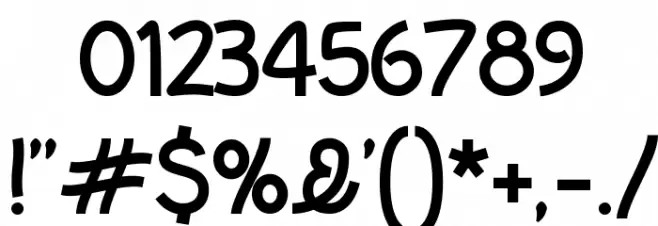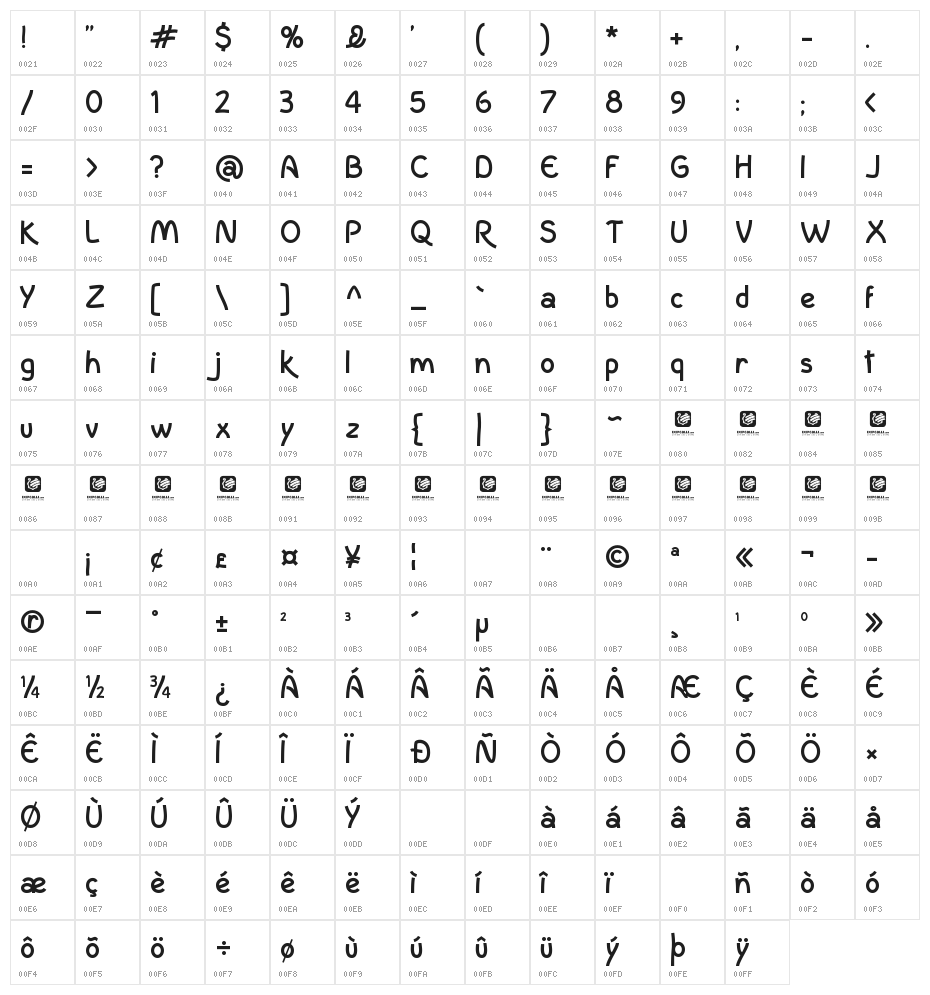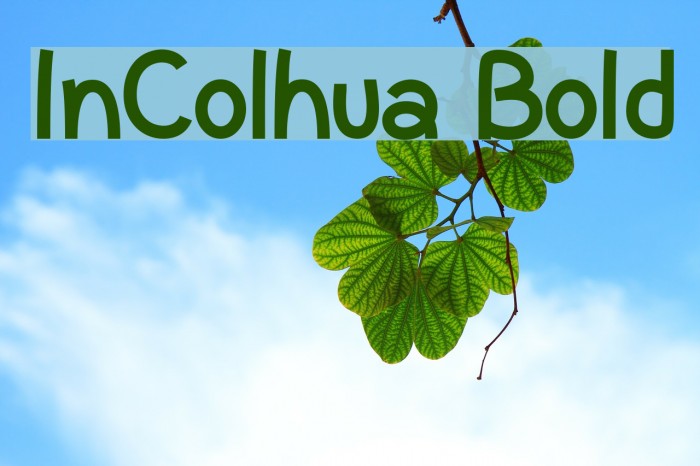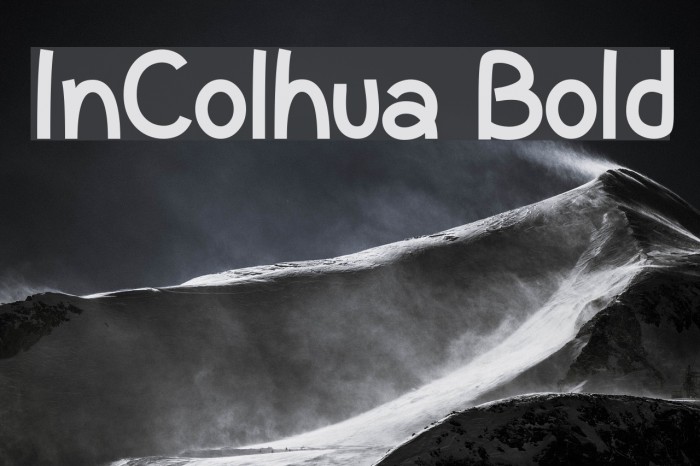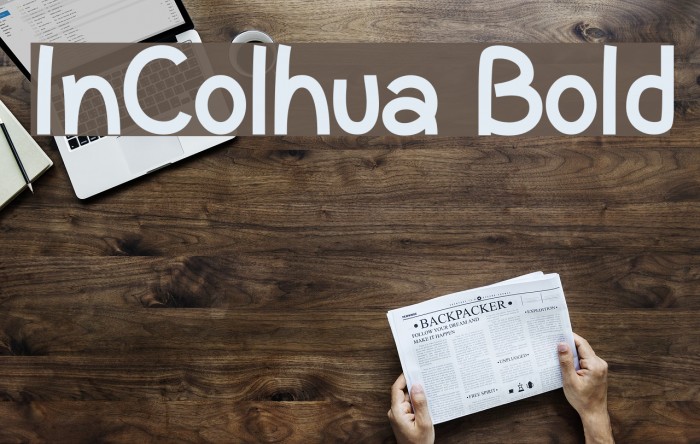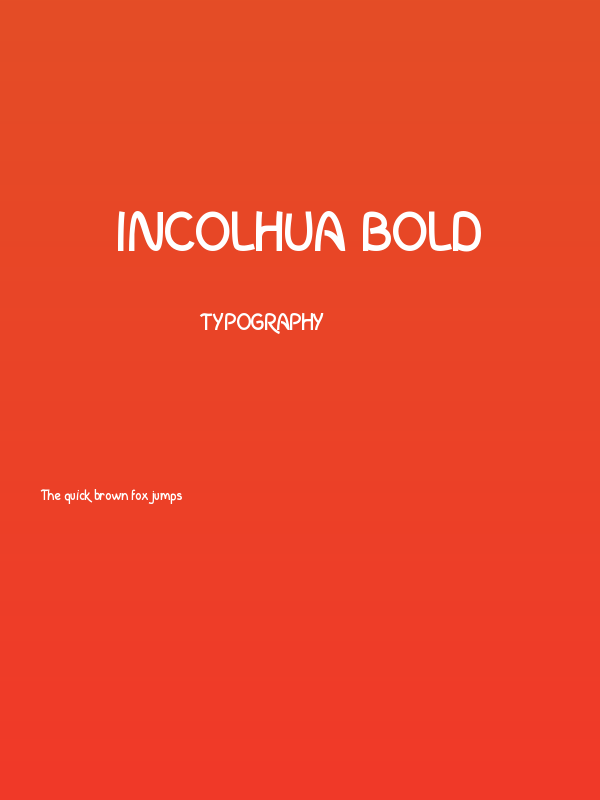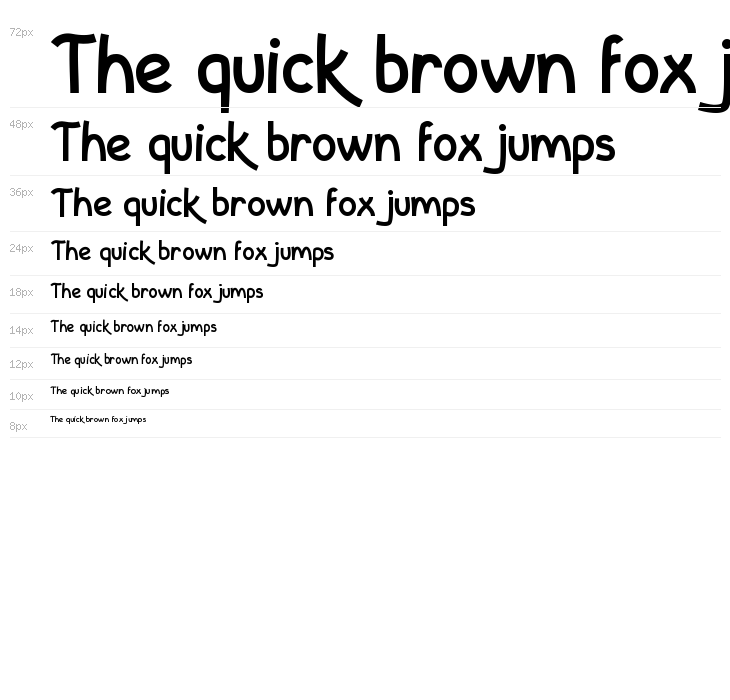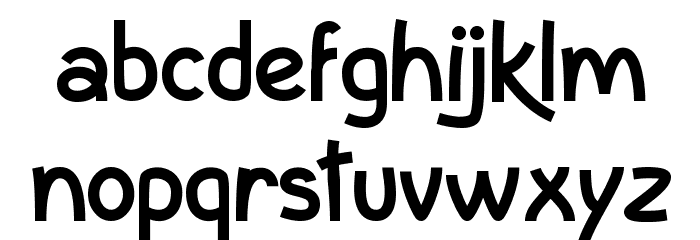
InColhua Bold Font
InColhua Bold Description
This font features a playful and bold style with a unique, hand-drawn appearance. The letters are slightly irregular, giving it a whimsical and informal feel. The uppercase and lowercase letters are well-balanced, with rounded edges and a consistent stroke width that adds to its approachable character. The numerals and special characters maintain the same playful aesthetic, making it versatile for various creative projects. Its boldness ensures readability while the quirky design elements make it stand out.